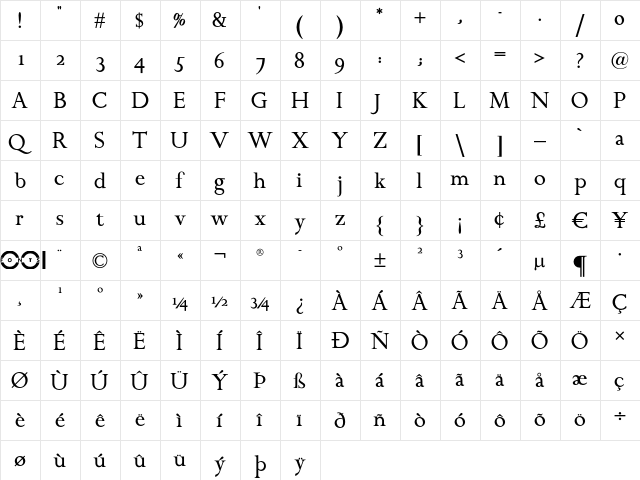
Chanticleer Roman NF Regular
Design Context for Chanticleer Roman NF Typeface
Chanticleer Roman NF is a composed and adaptable typeface that performs quietly and consistently across a wide range of design contexts.
Pro Tip: Use Chanticleer Roman NF in both headline and body roles to test its range before committing to a single application.